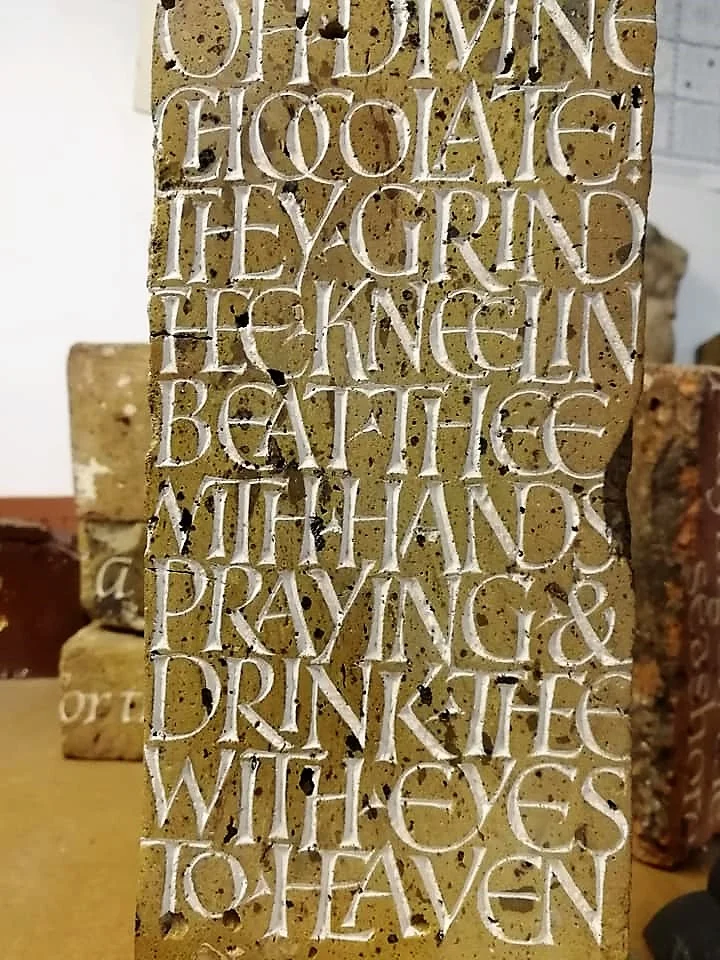
Divine Chocolate by Mark Brooks
‘Oh divine chocolate, they grind thee kneeling, beat thee with hands praying and drink thee with eyes to heaven.’ – Words composed by the 18th century Spanish writer Marcos Antonio Orellana, satirising the reverence that accompanied the new craze for drinking chocolate. Lettering hand carved onto a Victorian house brick, and painted.
16 artists were invited to the Chelsea Physic Garden to acquaint them with the unique, historic garden. They responded to the Gardens’ 2018 theme of ‘Beverages Bubbles and Brews’ with proposals for standing stones and sculptures, sundials and ornaments with witty and wise inscriptions of poetry, drinking songs and recipes.
Inspired by the myriad of plants that are the ingredients in teas and tisanes, wines, cordials, beers and herbal brews, ‘An Elixir of Letters’ slakes  the thirst of art lovers and gardening enthusiasts alike.
The exhibition occupies spaces throughout Chelsea Physic Garden from May to October 2018.